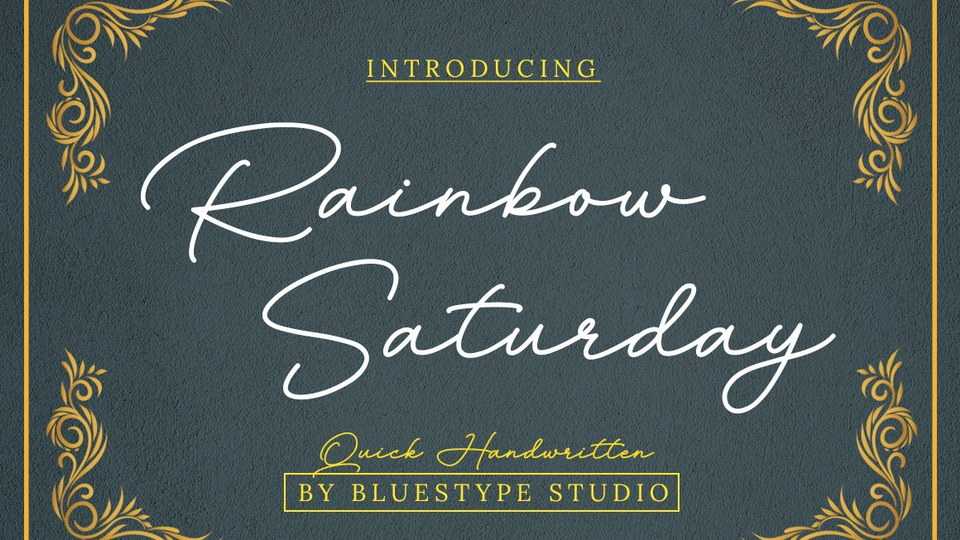
Download Rainbow Saturday font, a distinct script typeface that features a very refined and classy look. Not too thin and not too thick, balanced and varied, this font was designed to enhance the beauty of your projects.